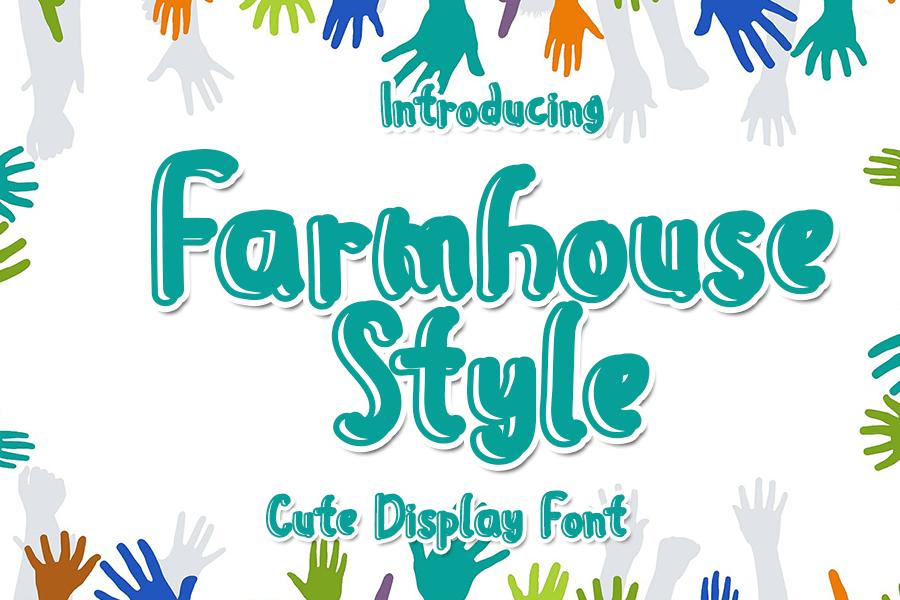
Farmhouse Style Font Description
Farmhouse style is a very beautiful and attractive dispaly font. This font was designed to simplify your design such as clothing designs, apparel, mockups, logo designs, YouTube banners, and many other crafts. By using this font, your business will look more beautiful and tough on the market.